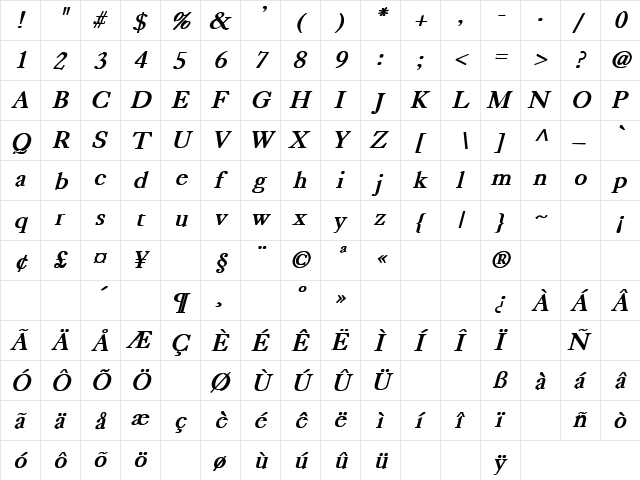
Sick As A Dog 6 Bold Italic
Design Context for Sick As A Dog 6 Typeface
Sick As A Dog 6 takes a measured approach to typography — its balanced proportions and neutral character make it a reliable workhorse for both digital and print work. Its italic angle brings a sense of urgency and motion to the letterforms. Its bold stroke weight gives it real presence on the page.
Pro Tip: Use Sick As A Dog 6 for emphasis, pull quotes, and subheadings where its slanted energy can add rhythm to the layout.